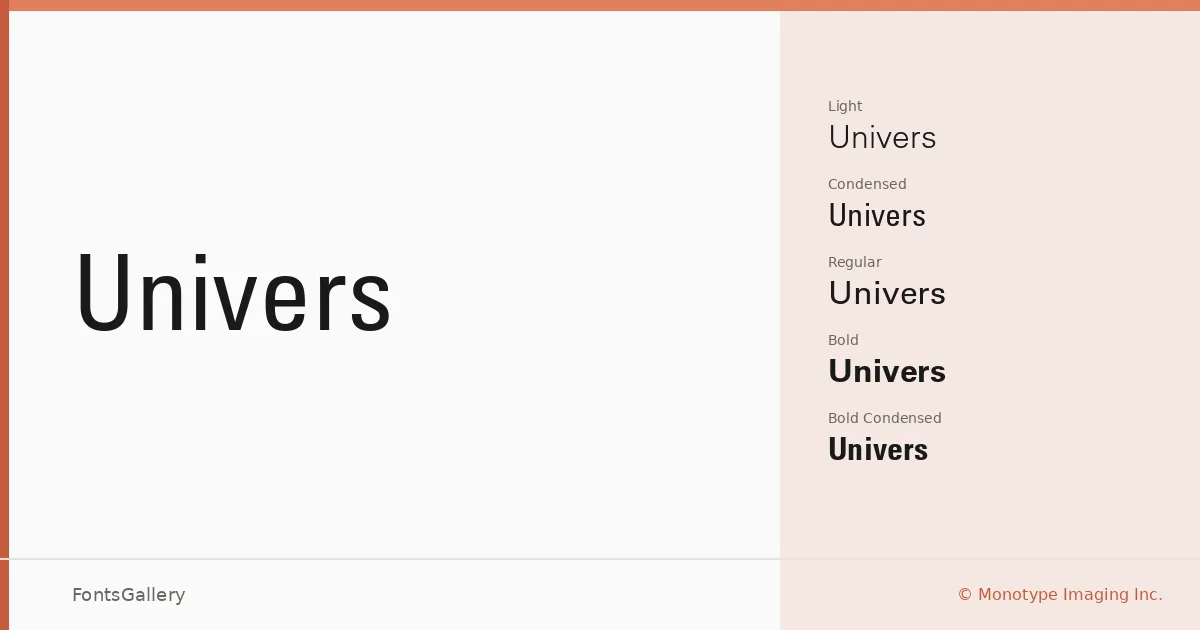
About Univers Font
Few sans serifs carry the architectural calm that Adrian Frutiger achieved here — every stroke measured, every terminal resolved with the same quiet confidence. Released under the stewardship of Monotype Imaging Inc., this is a face built on systematic logic: optical consistency across weights and widths rather than the looser, more humanist improvisation you find in many contemporaries. The result is letterforms that read as inevitable rather than designed.
The family spans five TTF cuts — Light, Regular, Bold, Condensed, and Condensed Bold — giving you a range that covers restrained body settings at the lighter end and commanding display work in the bold and condensed variants. The overall character is minimal and modern without being cold: strokes are even, contrast is nearly absent, and spacing carries a professional openness that holds up under pressure at both small and large sizes. Latin, Cyrillic, and Greek character sets are all present, making it a capable choice wherever those scripts share a page.
The Condensed Bold is essentially made for headlines and signage — tight, authoritative, impossible to ignore — while the Light and Regular sit naturally in magazine layouts and branded presentations where restraint matters more than impact. Branding work benefits from the family's internal consistency: you can move between widths and weights without the visual friction that mismatched faces introduce. For pairing, the family has been matched with Canela, Armelie, 321 Impact, ABC Arizona, and Kactigona, each bringing a contrasting texture — whether organic, decorative, or expressive — that plays well against this face's controlled geometry.